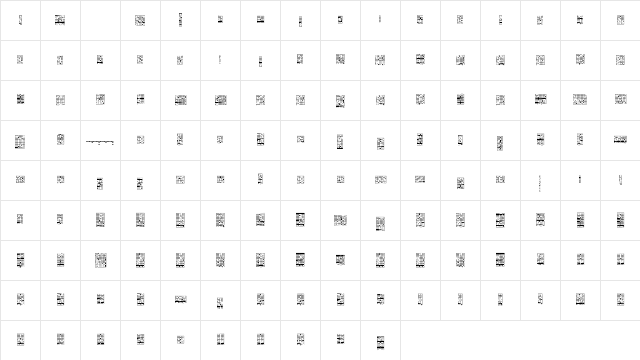
ACSF Divine divine-5pt
Style: divine-5pt
Design Context for ACSF Divine
ACSF Divine is a composed and adaptable typeface that performs quietly and consistently across a wide range of design contexts.